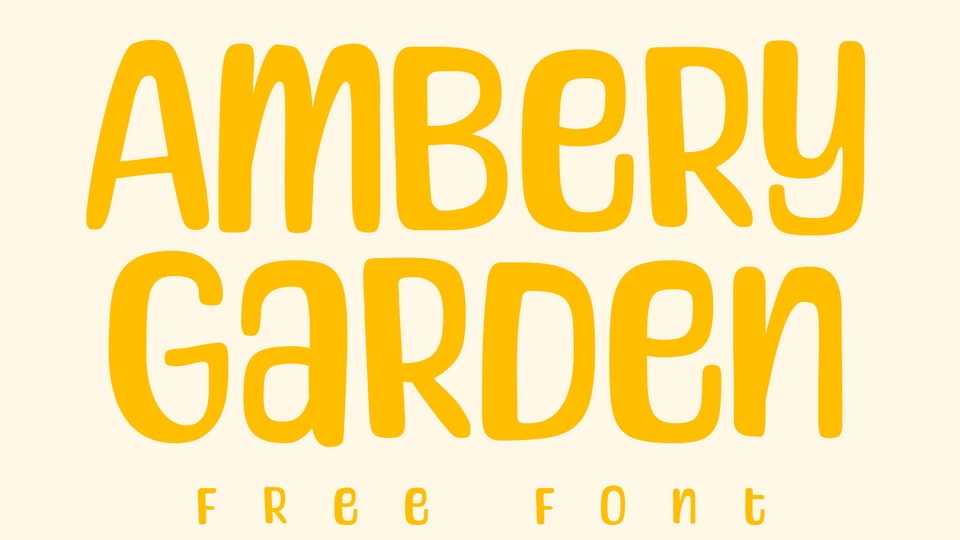
Download Ambery Garden font, a cute lettered, fun, and friendly display typeface. Ambery Garden embodies playfulness and authenticity and is the perfect choice for any craft project.